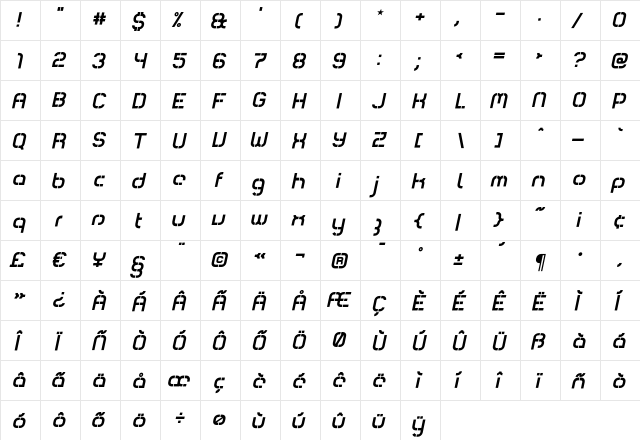
Comsat BoxItalic Font Preview
Comsat BoxItalic
Comsat BoxItalic Font Details
Design Context for Comsat Typeface
Comsat takes a measured approach to typography — its balanced proportions and neutral character make it a reliable workhorse for both digital and print work. The slanted form adds forward momentum and visual energy.